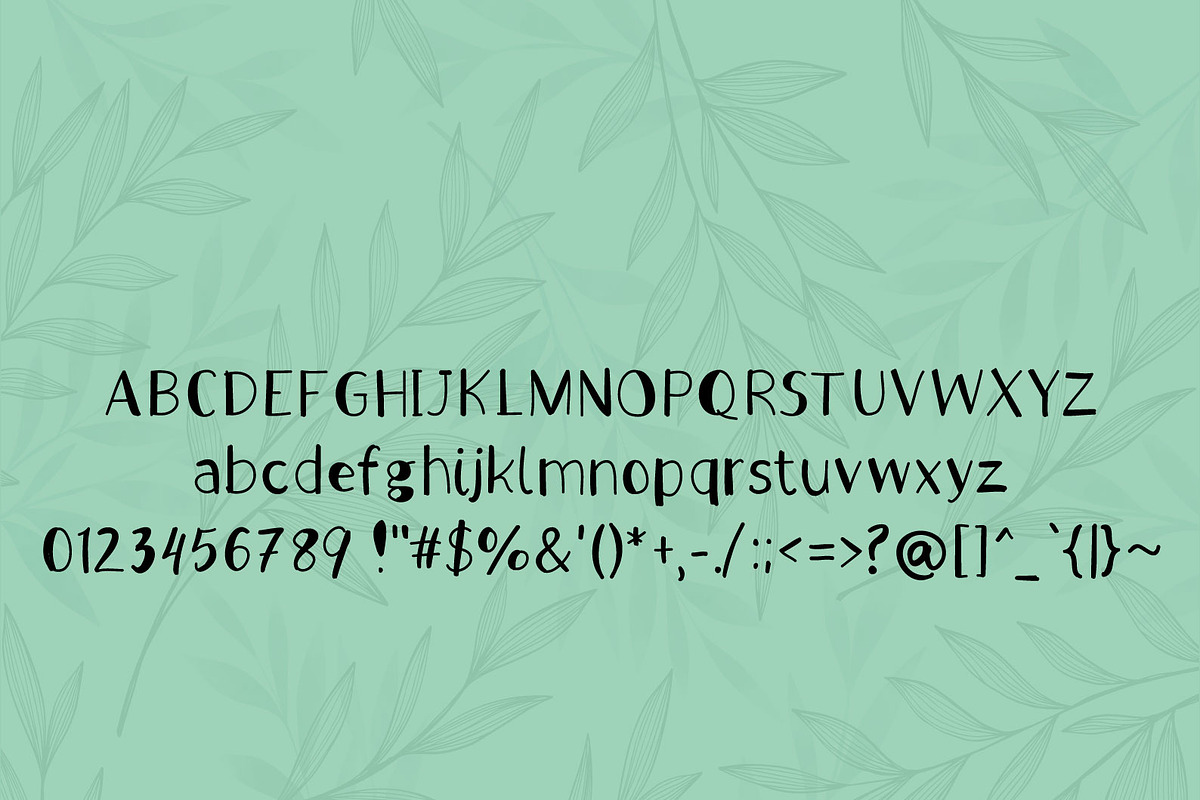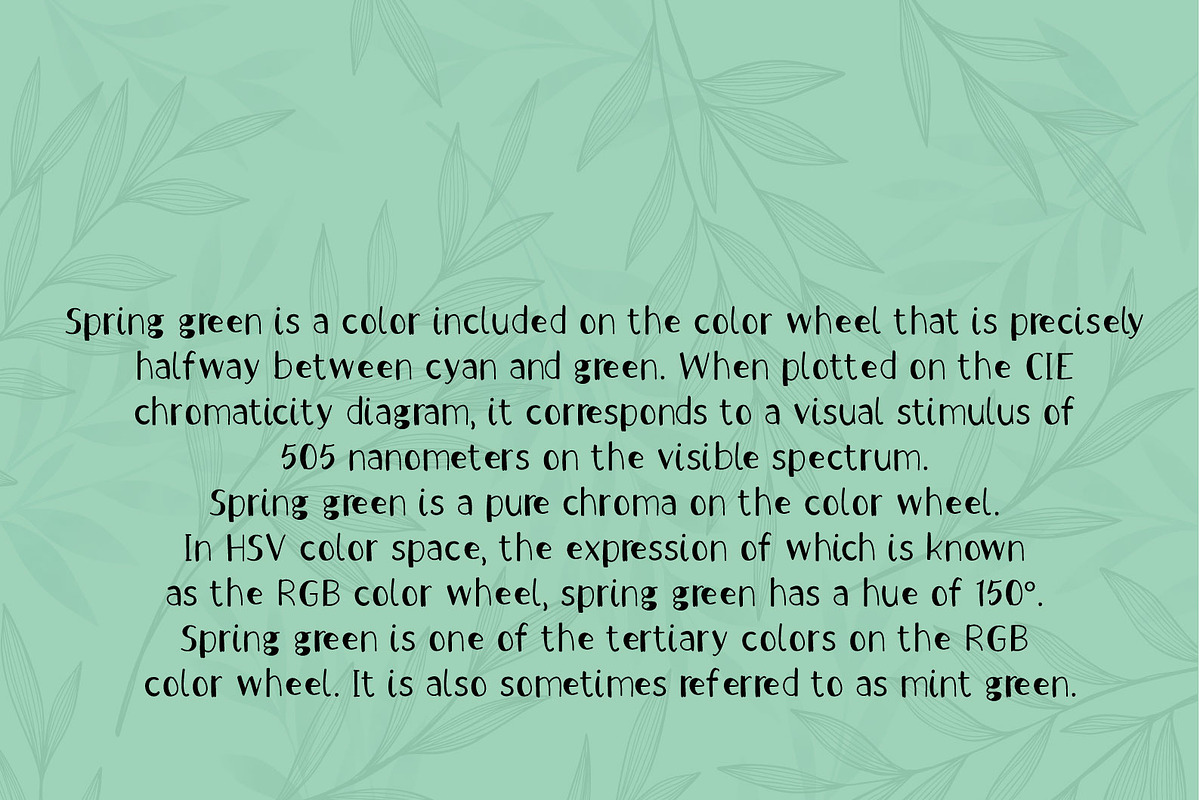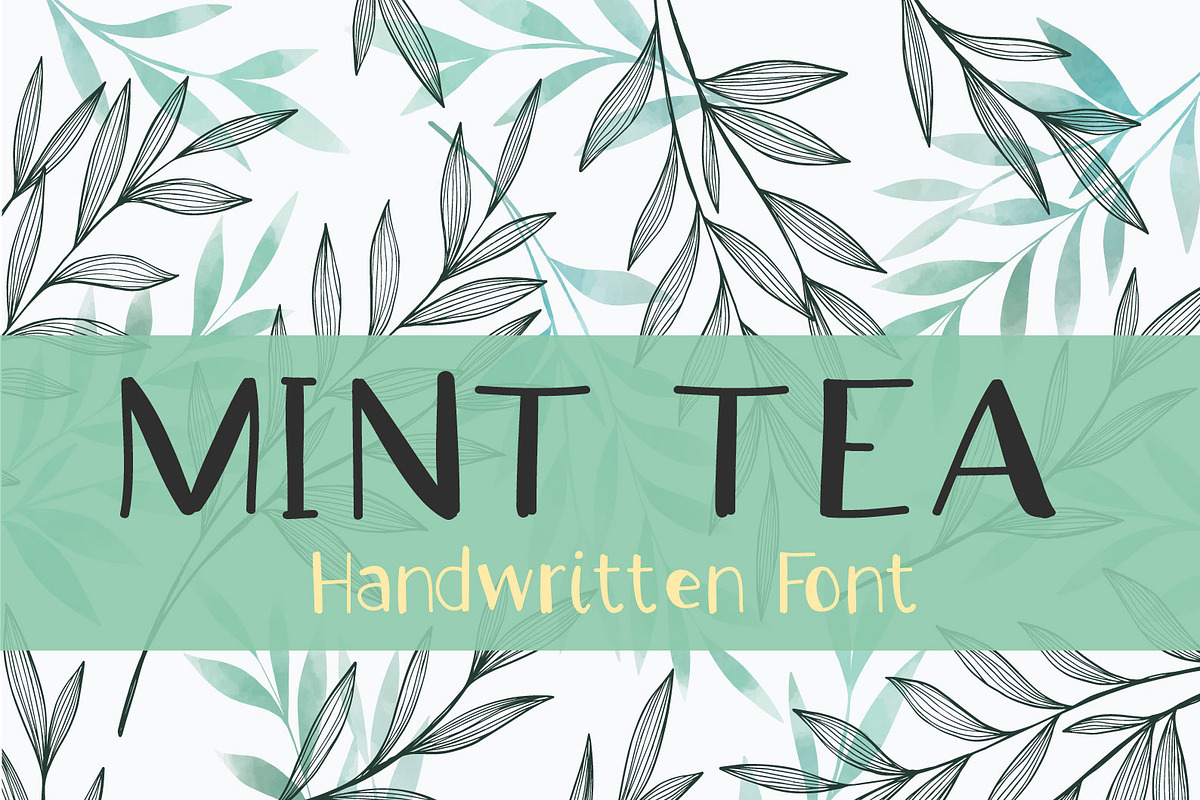
Mint Tea - Handwritten Font
MINT TEA FONT
Mint Tea font is perfect for: logos, branding, wedding invitations, business cards, greeting cards, posters, magazines, social media, planner prints and websites.